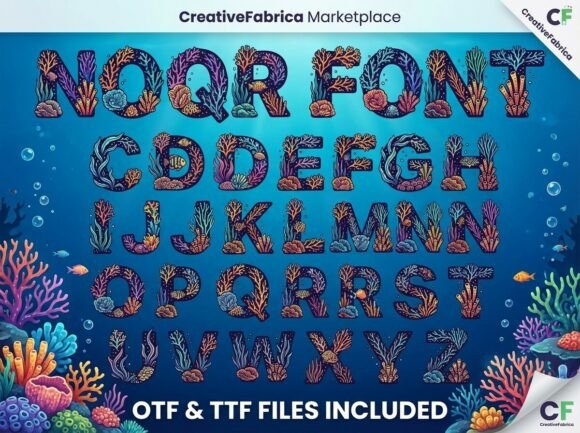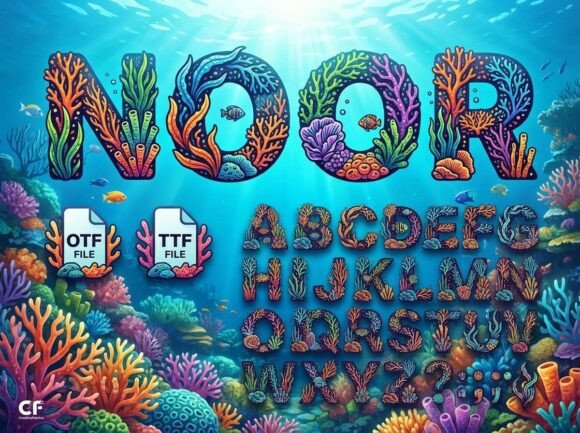
Introduction to Noor Font
This font is a stunning decorative display font designed to be the center of attention.
Featuring unique artistic elements and a strong visual personality, this font is perfect for creators who want to break away from the ordinary With its intricate details and creative letterforms, this is ideal for high-impact designs where the typography needs to do the talking.